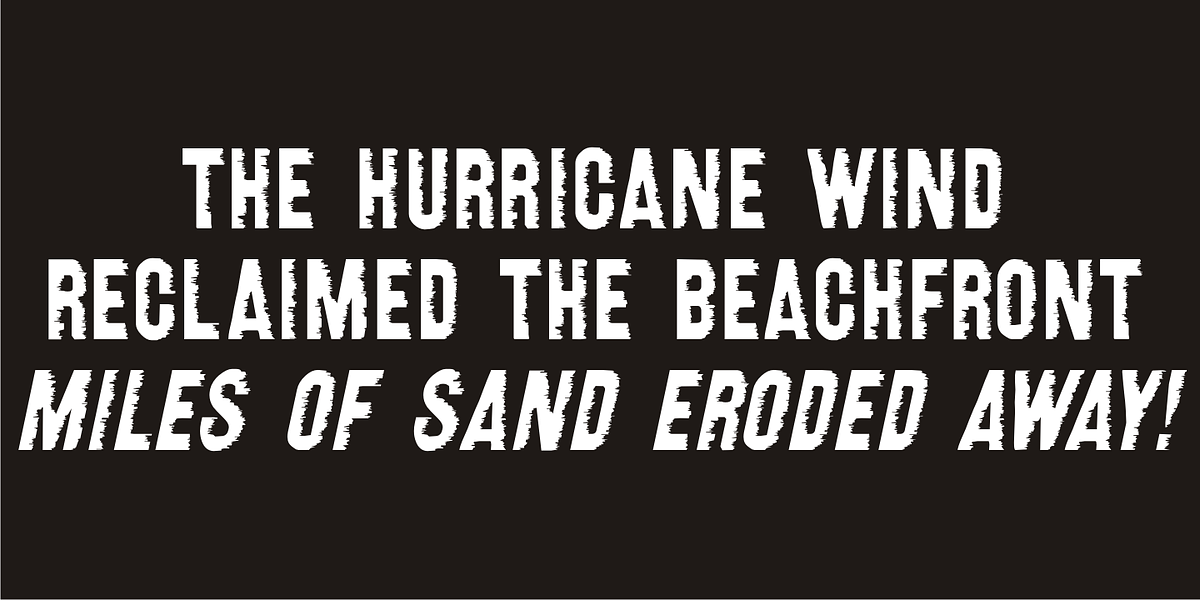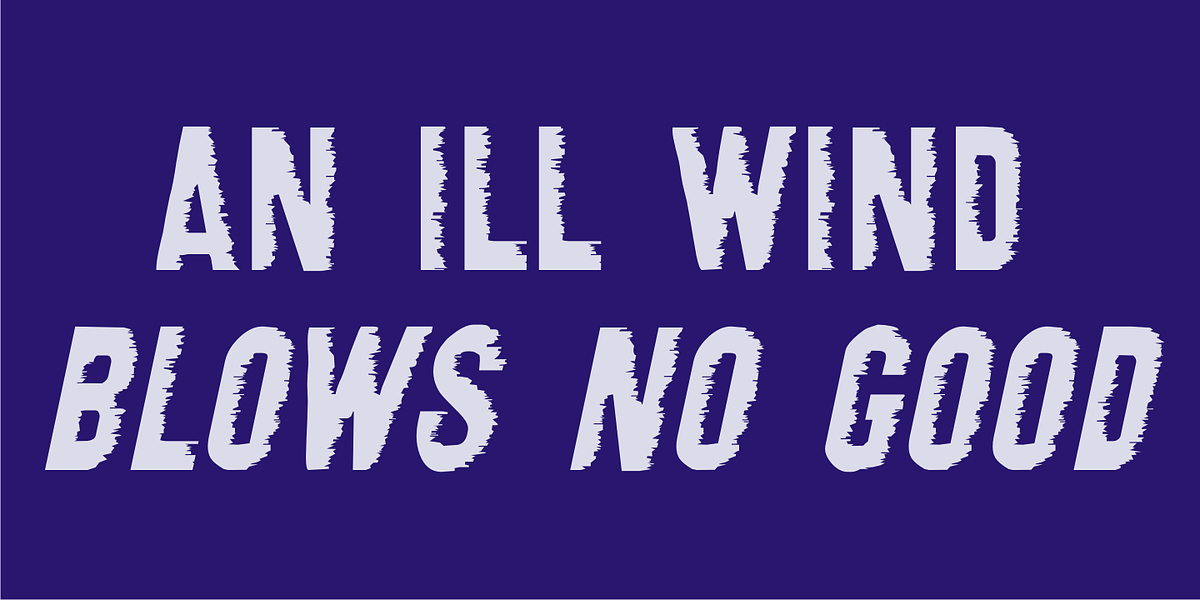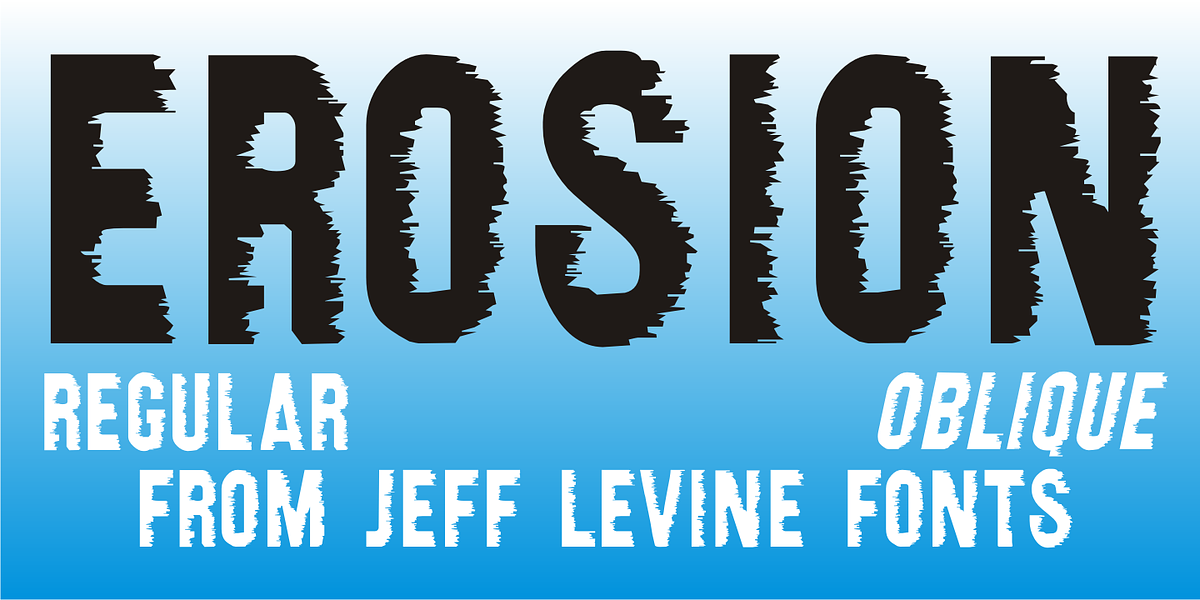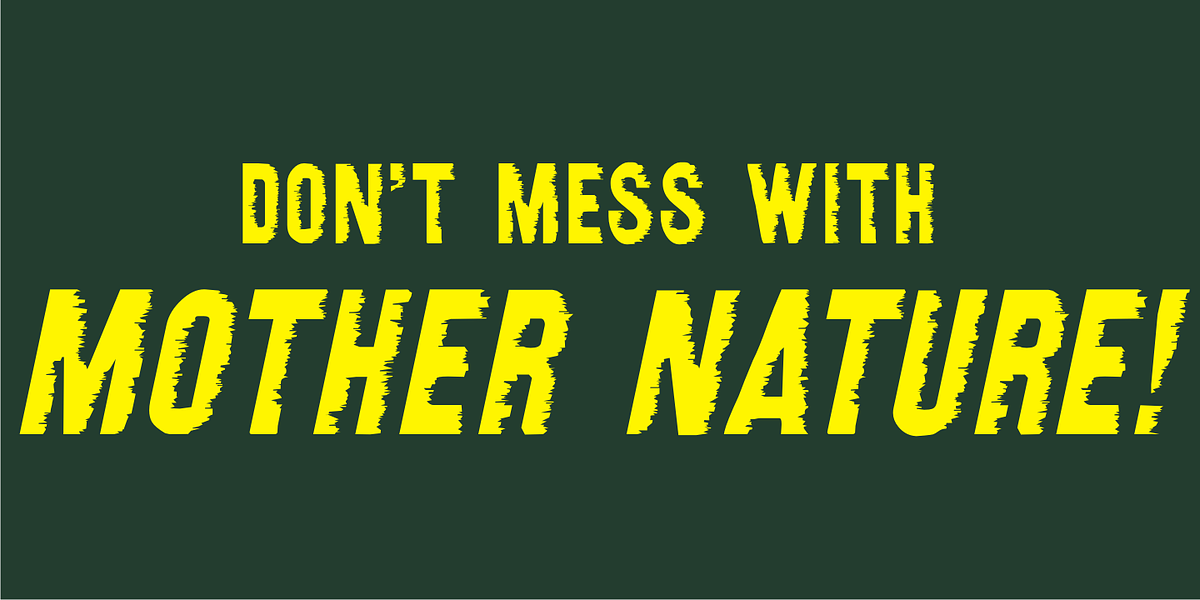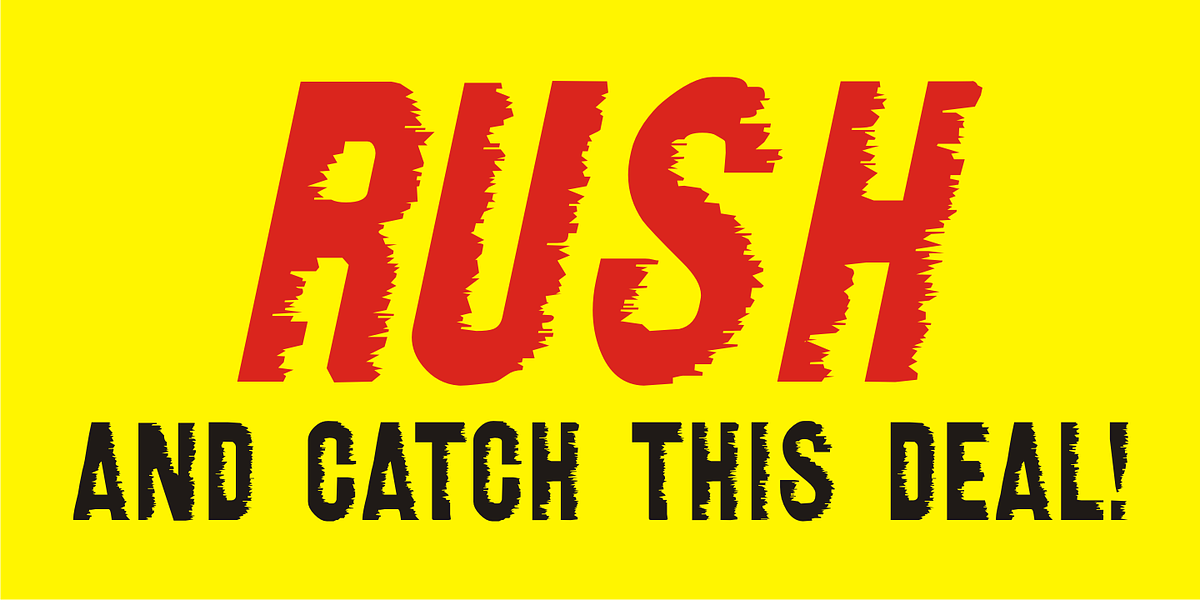
Erosion JNL
Take a classic sans serif typeface, run it through a filter for a "wind" effect then auto-trace the design. The result: A broken, jagged and rough type font called Erosion JNL.